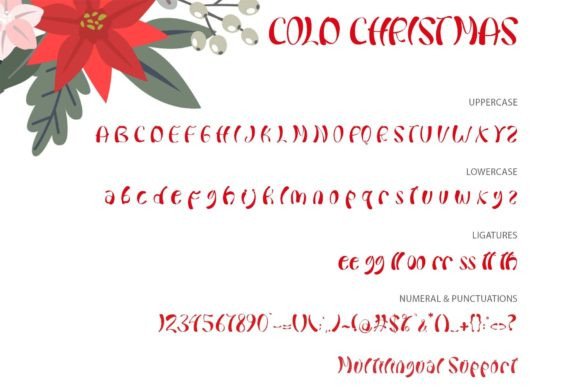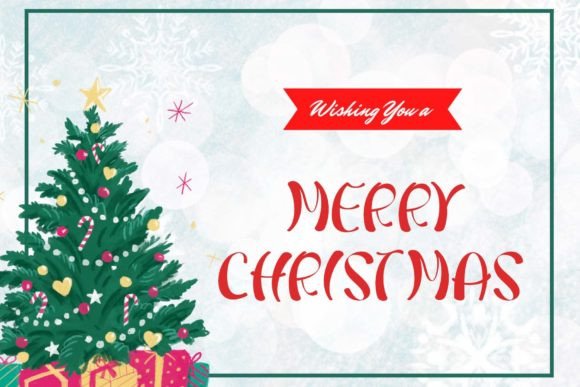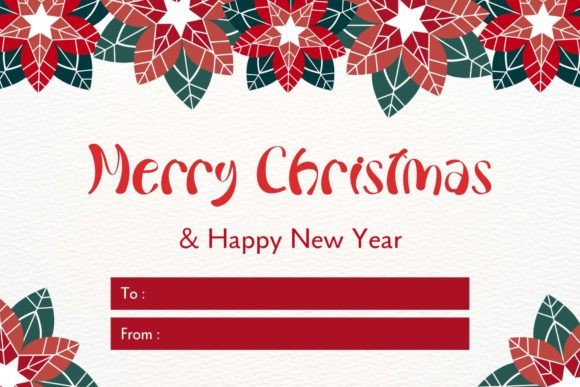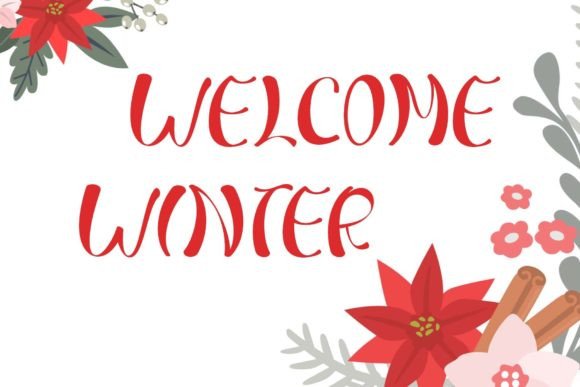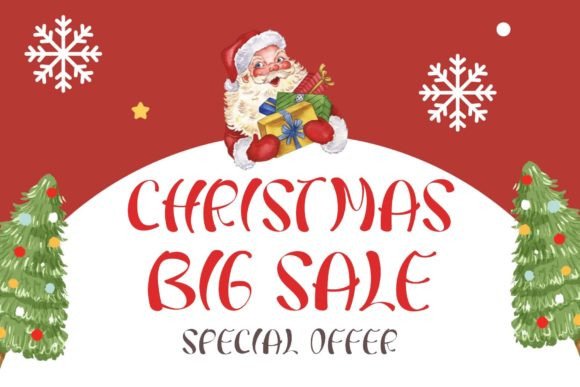
Cold Christmas Font: A Fun and Friendly Display Font to Brighten Up Your Designs
Are you looking for a font that will add a touch of whimsy and quirkiness to your designs this holiday season? Look no further than the Cold Christmas font! This fun and friendly display font is perfect for designers and crafters who want to create unique and eye-catching projects that will stand out from the crowd.
What is Cold Christmas Font?
Cold Christmas font is a display font that is designed to evoke the feeling of a cold winter’s day, but with a fun and playful twist. The font is whimsical and quirky, with a unique character that will add a touch of personality to any design. Whether you’re creating holiday cards, gift tags, or social media graphics, Cold Christmas font is the perfect choice.
Key Features of Cold Christmas Font
- Fun and Friendly: Cold Christmas font is designed to be fun and friendly, making it perfect for holiday designs that need a touch of personality.
- Whimsical and Quirky: The font has a unique and quirky character that will add a touch of whimsy to any design.
- Display Font: Cold Christmas font is a display font, making it perfect for headlines, titles, and other large text elements.
- Easy to Read: Despite its quirky character, Cold Christmas font is easy to read, making it perfect for designs that need to be both fun and functional.
Uses for Cold Christmas Font
Cold Christmas font is a versatile font that can be used for a wide range of designs, including:
- Holiday Cards: Create unique and eye-catching holiday cards that will stand out from the crowd.
- Gift Tags: Add a touch of personality to your gift tags with Cold Christmas font.
- Social Media Graphics: Create fun and engaging social media graphics that will get your followers in the holiday spirit.
- Signs and Banners: Use Cold Christmas font to create eye-catching signs and banners that will add a touch of whimsy to any event.
Tips for Using Cold Christmas Font
Here are a few tips for using Cold Christmas font in your designs:
- Use it as a Headline Font: Cold Christmas font is perfect for headlines and titles, so use it to add a touch of personality to your designs.
- Pair it with Other Fonts: Cold Christmas font pairs well with other fonts, so don’t be afraid to experiment with different combinations.
- Use it in Large Text Elements: Cold Christmas font is designed to be used in large text elements, so use it to create eye-catching headlines and titles.
Cold Christmas font is a fun and friendly display font that is perfect for designers and crafters who want to add a touch of whimsy and quirkiness to their designs. With its unique character and easy-to-read design, Cold Christmas font is the perfect choice for holiday designs that need a touch of personality. So why not give it a try and see how it can brighten up your designs?
Cold Christmas font is a great addition to any designer’s toolkit, and it’s sure to bring a touch of fun and personality to your designs. So why not give it a try and see how it can help you create unique and eye-catching designs this holiday season?